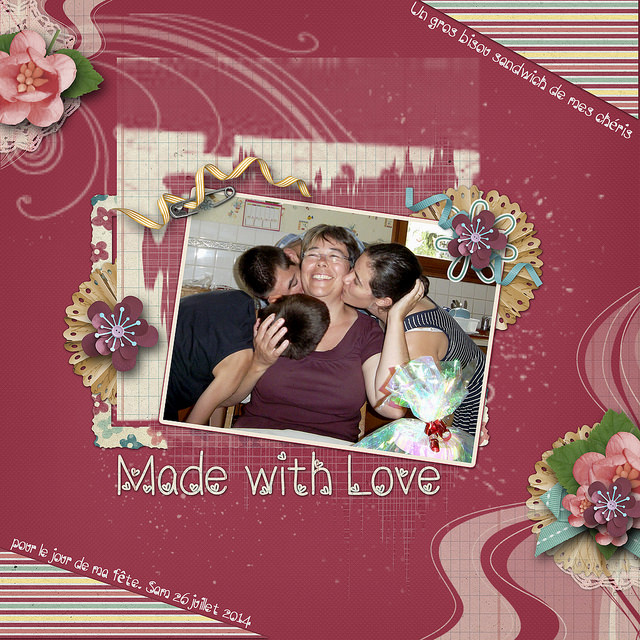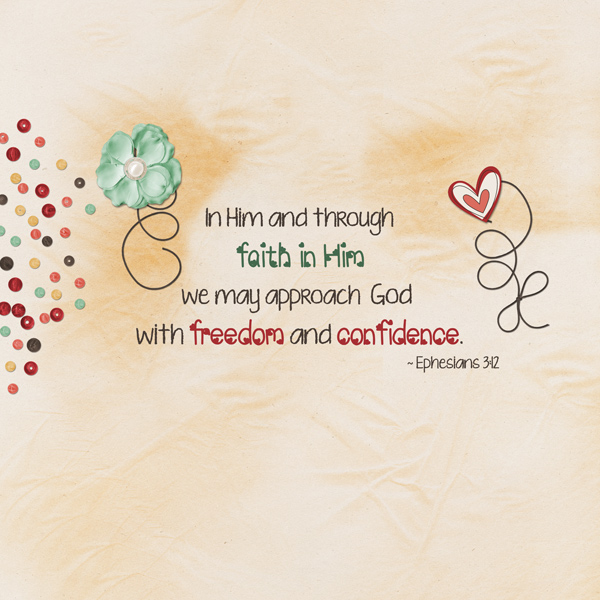
38. LoveNess Three
The hearts are placed so well scattered about these letters that I can just feel the love! What a great font to scrap about those you love and things you love. (link)